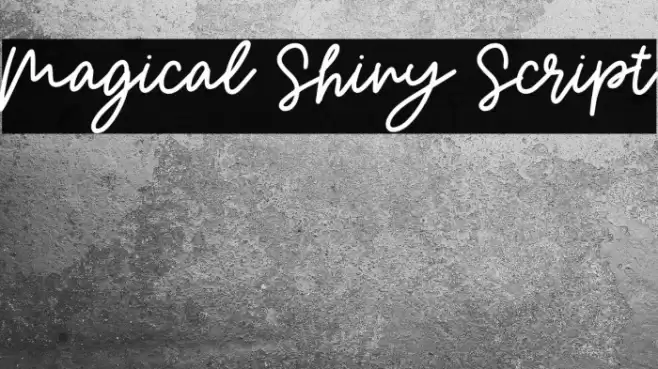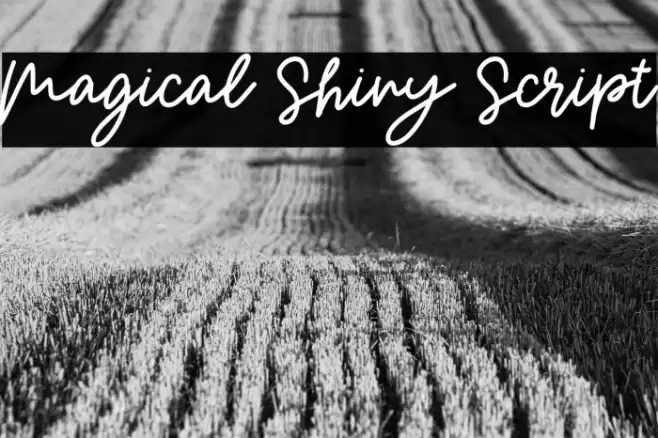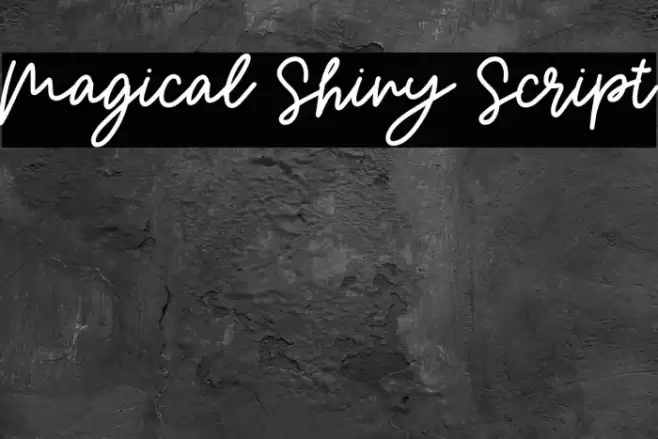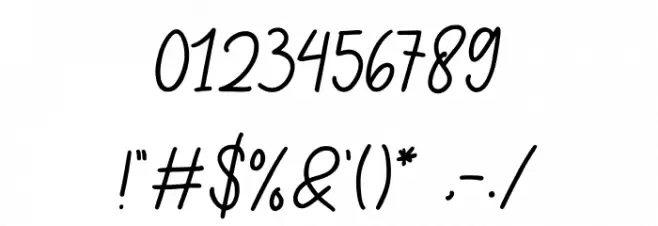
Magical Shiny Script Font
Magical Shiny Script Description
This font features a smooth, flowing script style that mimics elegant handwriting. The characters are connected, creating a seamless and continuous look. The uppercase letters are slightly larger and more pronounced, while the lowercase letters maintain a consistent flow. The numerals and special characters are crafted to match the overall script style, providing a cohesive appearance. This font exudes a sense of sophistication and charm, making it ideal for projects that require a personal touch.
A smooth, flowing script font with elegant, connected characters from Regular fonts.
- Proposed Projects: Ideal for wedding invitations, greeting cards, personal branding, and elegant packaging designs.
- Overall Style: Elegant, Handwritten
- Use Case: Logos, Invitations, Personal Branding